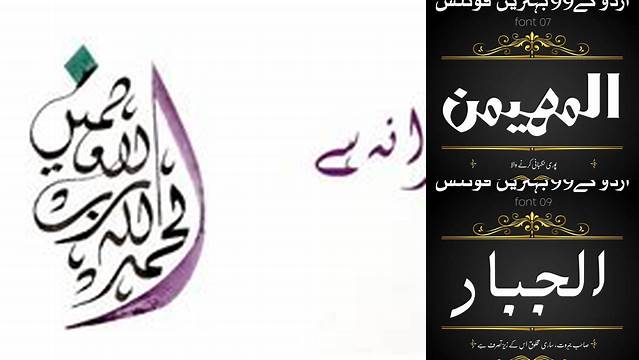
Urdu Calligraphy Fonts: Enhance Your Photoshop Designs
Hey guys! Are you looking to spice up your Photoshop designs with some beautiful Urdu calligraphy? Well, you've come to the right place! In this article, we're diving deep into the world of Urdu calligraphy fonts, exploring everything from where to find them to how to use them effectively. So, grab a cup of chai, and let's get started!
What is Urdu Calligraphy and Why Use It?
Urdu calligraphy, also known as Khattati, is the art of beautiful writing in the Urdu language. It's not just about legibility; it's about creating visually stunning pieces that convey meaning through aesthetics. Urdu calligraphy fonts can add a touch of elegance, tradition, and cultural richness to your designs. Think wedding invitations, posters, branding materials, and even digital art. Why settle for plain text when you can make a statement with artistic flair? The beauty of Khattati lies in its ability to transform ordinary words into extraordinary works of art. Using Urdu calligraphy fonts in your designs immediately elevates the visual appeal and adds a layer of sophistication that is hard to achieve with standard fonts. Furthermore, it鈥檚 a fantastic way to connect with audiences who appreciate the cultural and artistic heritage of Urdu.
Popular Styles of Urdu Calligraphy Fonts
There are several distinct styles of Urdu calligraphy, each with its own unique characteristics. Knowing these styles will help you choose the perfect font for your project. Some popular styles include Nasta士l墨q, arguably the most well-known and widely used style, characterized by its sloping lines and elegant curves. Then there鈥檚 Kufic, an older, more angular style often seen in historical Islamic texts. Diwani is another ornate style, known for its decorative flourishes and overlapping letters, often used in official documents and royal decrees. Thuluth is a bold and majestic style, frequently used for headings and important inscriptions. Understanding these different styles of Urdu calligraphy fonts can significantly impact your design choices, ensuring that your work resonates with the intended message and aesthetic. Each style carries its own history and cultural significance, adding depth and meaning to your creative projects. So, take some time to explore and experiment with different styles to find the perfect match for your artistic vision.
Finding Free Urdu Calligraphy Fonts for Photoshop
Paid Urdu Calligraphy Fonts: When to Invest
Using Urdu Calligraphy Fonts Effectively in Design
Using Urdu calligraphy fonts effectively requires a bit of finesse. Don't overuse them! Calligraphy fonts are best used sparingly, for headings, logos, or short phrases. Pair them with simpler, more legible fonts for body text. Consider the context and tone of your design. A formal invitation might call for an elegant Nasta士l墨q font, while a modern poster could benefit from a bolder, more stylized typeface. Pay attention to spacing and kerning to ensure the calligraphy is readable and visually appealing. Experiment with different colors and effects to enhance the font's impact. Most importantly, ensure the Urdu calligraphy fonts align with the overall aesthetic and message of your design. When used correctly, calligraphy can add a powerful layer of meaning and beauty to your work. So, take your time, experiment, and find the perfect balance to create stunning visuals that resonate with your audience.
Common Mistakes to Avoid When Using Urdu Fonts
Even with the best intentions, it鈥檚 easy to make mistakes when using Urdu calligraphy fonts. One common mistake is using too many different calligraphy styles in one design, which can create a cluttered and confusing look. Another is choosing a font that鈥檚 difficult to read, especially for those unfamiliar with Urdu script. Always prioritize legibility, even when aiming for artistic flair. Ignoring kerning and spacing can also detract from the overall appearance of the calligraphy. Furthermore, make sure the font is appropriate for the context; a playful font might not be suitable for a serious document. Be mindful of cultural sensitivities and avoid using calligraphy in a way that could be disrespectful or inappropriate. By avoiding these common pitfalls, you can ensure that your use of Urdu calligraphy fonts enhances your designs and communicates your message effectively.
Combining Urdu Calligraphy with Other Design Elements
One of the coolest things you can do is combine Urdu calligraphy fonts with other design elements to create something truly unique! Think about pairing calligraphy with modern graphics, vintage textures, or vibrant colors. The key is to find a balance that complements both the traditional and contemporary aspects of your design. Use whitespace effectively to give the calligraphy room to breathe and avoid overcrowding the composition. Consider using calligraphy as a focal point and building other elements around it. Experiment with different layering techniques to add depth and visual interest. By thoughtfully integrating Urdu calligraphy fonts with other design elements, you can create visually stunning and culturally rich designs that capture attention and convey your message with impact.
Best Software for Working with Urdu Calligraphy Fonts
While we're focusing on Photoshop, it's worth noting that other software can also be great for working with Urdu calligraphy fonts. Adobe Illustrator is fantastic for creating vector-based designs, which are ideal for logos and scalable graphics. InDesign is perfect for layout and typography-heavy projects like books and magazines. CorelDRAW is another popular option for graphic design and illustration. Each software has its own strengths and weaknesses, so choose the one that best suits your specific needs and workflow. Regardless of the software you choose, the key is to understand how to effectively use and manipulate Urdu calligraphy fonts to create stunning designs. Exploring different software options can broaden your creative possibilities and help you achieve the desired aesthetic for your projects.